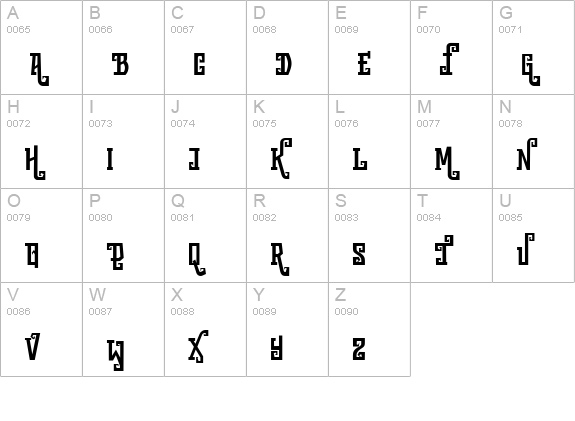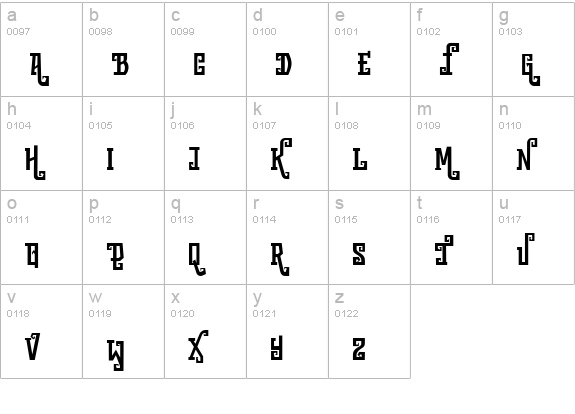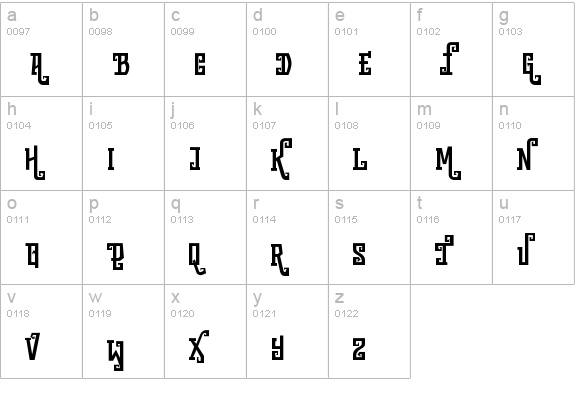
Vultures Font Details
Vultures is a demo font in the Holiday > Halloween category, designed by HydricDesign. It has been downloaded 84 times and is available for Windows, Mac and Linux.
Vultures font is a striking display typeface that exudes an air of mystery and elegance. Its sharp, angular letterforms give off a sense of power and sophistication, making it perfect for headlines, logos, and other design projects that demand attention. The unique design of Vultures font makes it stand out from the crowd, adding a touch of edginess to any composition.